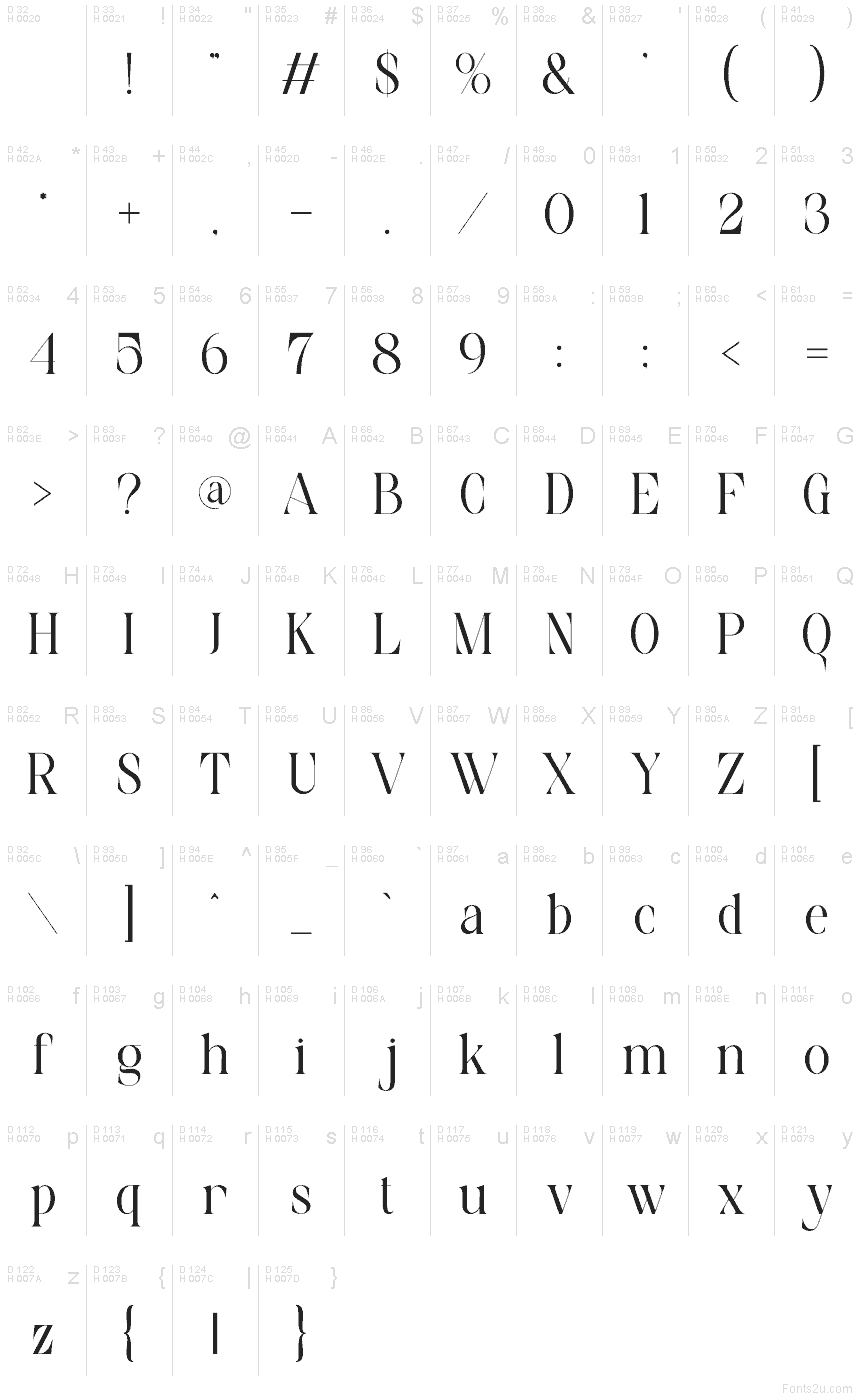
Bevitta
Bevitta font by Ermedia Studio is a free high-contrast serif display font. Built around sumptuous vertical strokes that taper to razor-fine hairlines, it delivers that glossy, editorial snap you see in luxury mastheads. Letters feel sculpted—sleek curves, narrow counterspaces, and a confident rhythm that holds together even at large sizes. It’s dramatic without shouting, making a single word look like a statement.
Using Bevitta lends instant polish to fashion branding, magazine covers, beauty packaging, upscale logos, wedding stationery, editorial headlines, and social promos. The tight, deliberate spacing helps headlines lock up neatly, while the sharp contrast injects refinement into short phrases and monograms. For balance, pair this free font with a quiet, neutral sans for body copy, and let Bevitta do the spotlight work at larger sizes.